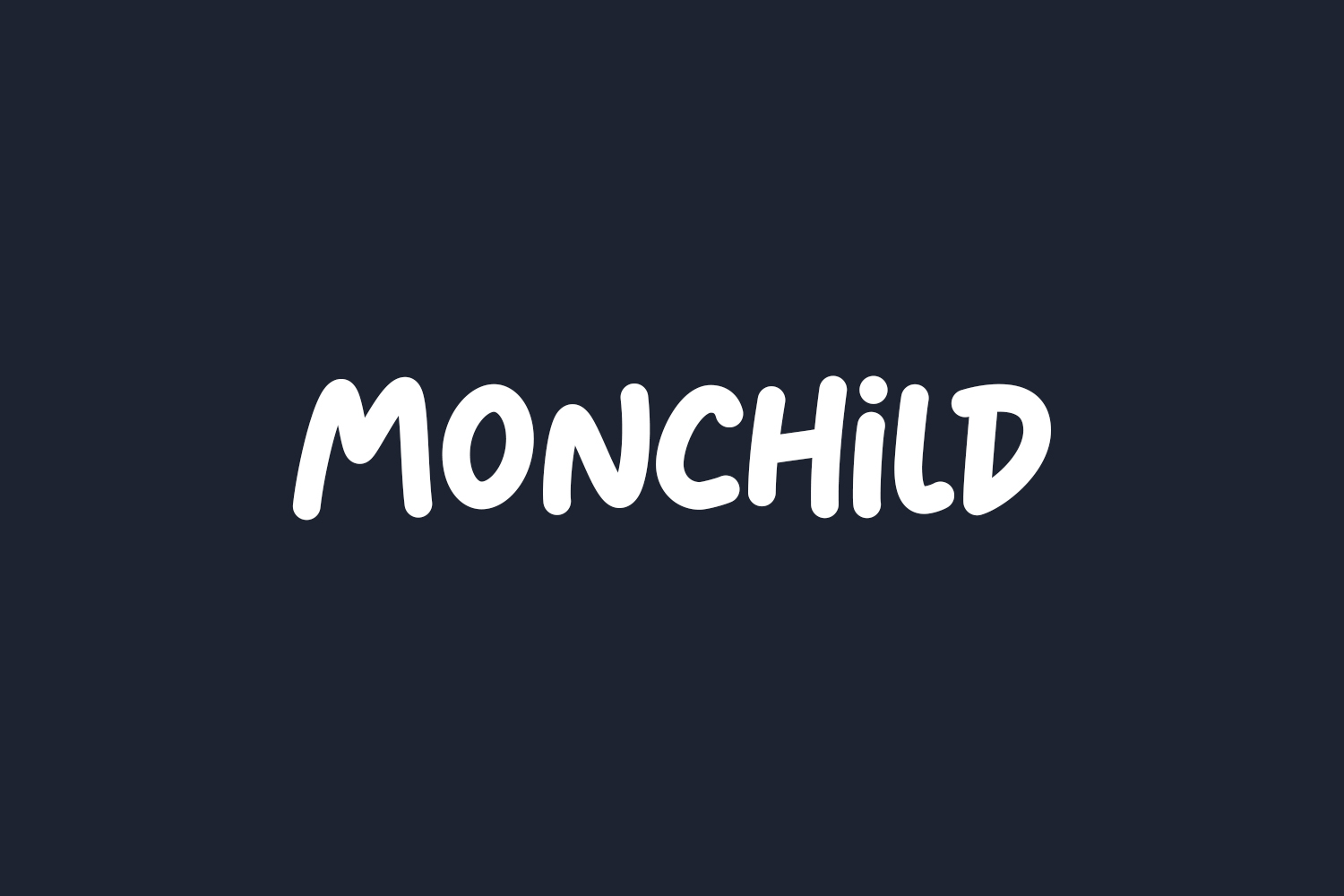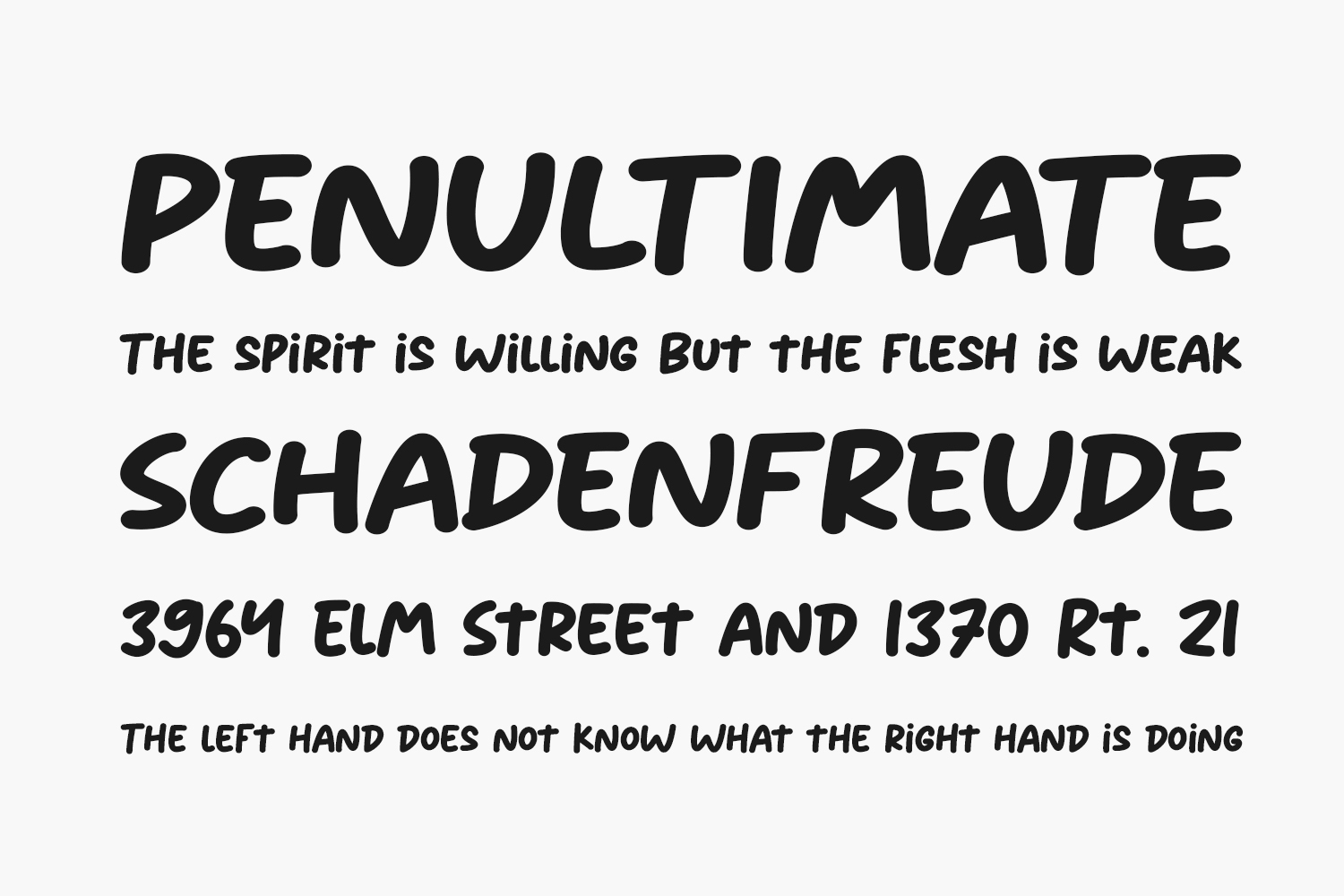
Moonchild Free Font is a gentle, uncomplicated display font tailor-made for chalkboard quotes and educational materials. Its authentic appearance infuses a personal and realistic touch into your designs, making it the perfect choice for bringing charm to your creations. Elevate your chalkboard-inspired projects with Moonchild’s delicate and simple lettering. Moonchild Free Font was designed by Graphix Line Studio and is free for personal use only. Please purchase the full version for commercial use.